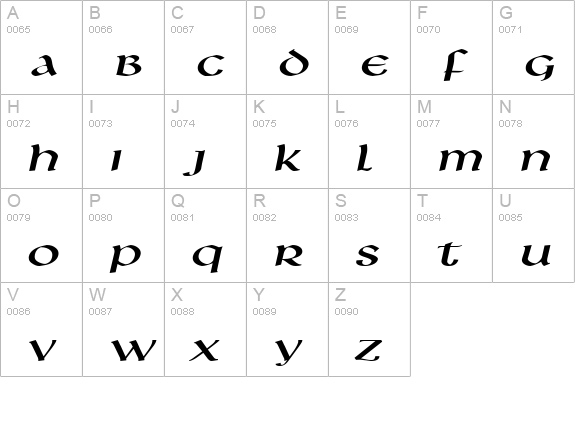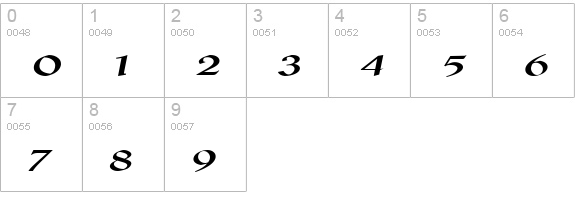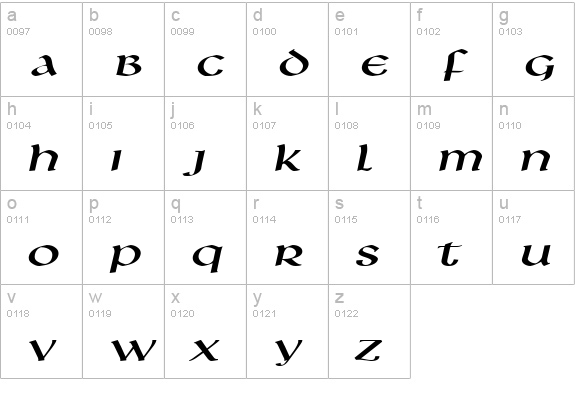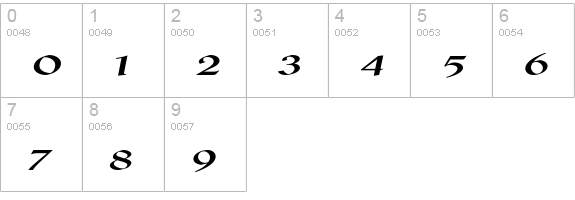
Leo Extended Italic is a distinctive, extended-width, italic variant in the Leo typeface family \xE2\x80\x94 well suited to design and typography projects.
Leo Extended Italic font is a stunning and elegant typeface that adds a touch of sophistication to any design project. Its beautifully curved and slanted letterforms exude a sense of modernity and style, making it perfect for use in headlines, logos, invitations, and more. This font's extended letterforms provide ample space for each character, ensuring legibility and readability even at smaller sizes. The italic variation adds a dynamic and artistic flair to your designs, giving them a unique and eye-catching appeal. Leo Extended Italic font is not only aesthetically pleasing but also highly versatile. Its versatility allows it to seamlessly fit into a wide range of design styles and themes, making it suitable for both professional and personal projects. One of the best things about Leo Extended Italic font is that it is freely available to download at FontsMarket.com. This means you can easily access and use this font without any hassle or cost. Whether you are a professional designer or a hobbyist, this free font provides an excellent opportunity to enhance your creative projects. So, if you are looking for a stylish and versatile font that can elevate your designs to the next level, look no further than Leo Extended Italic font. Download it for free at FontsMarket.com and let your imagination run wild with this exquisite typeface.